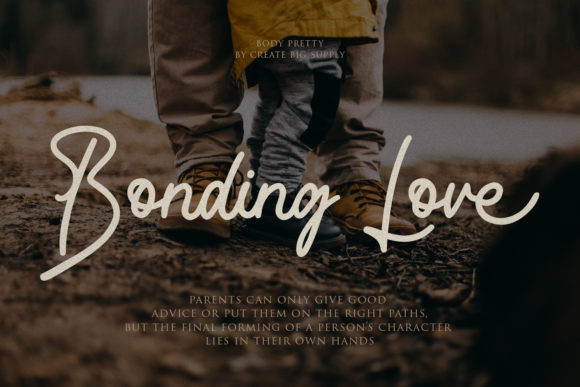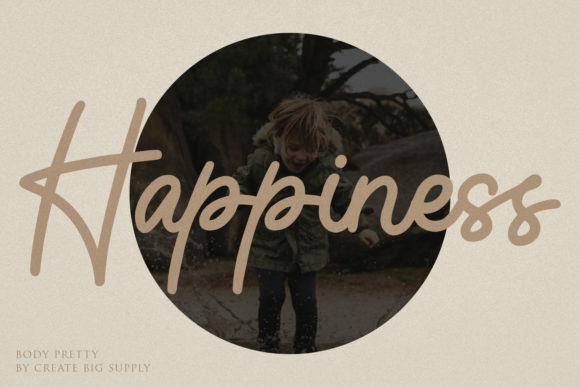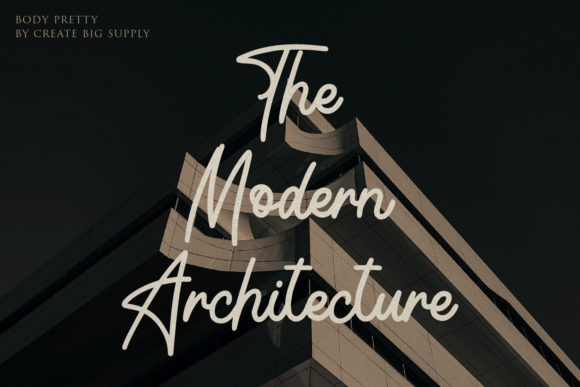
About Body Pretty Script Font
Body Pretty is a monoline script font perfect for various designs such as branding designs, logos, marketing materials, and more. This font is PUA encoded, which means you can access all of the glyphs and swashes with ease!